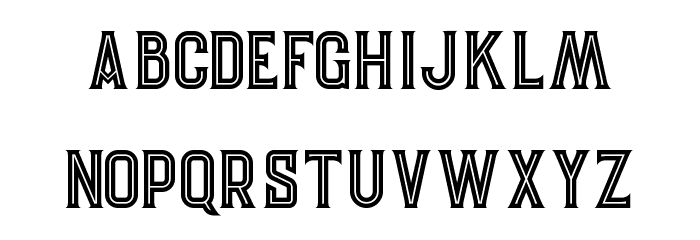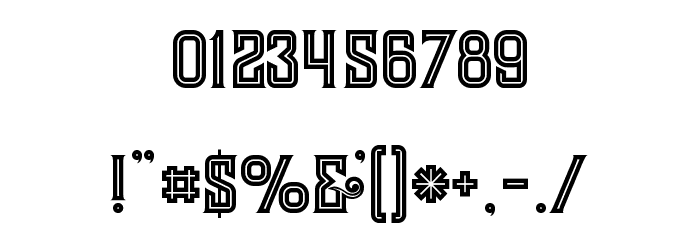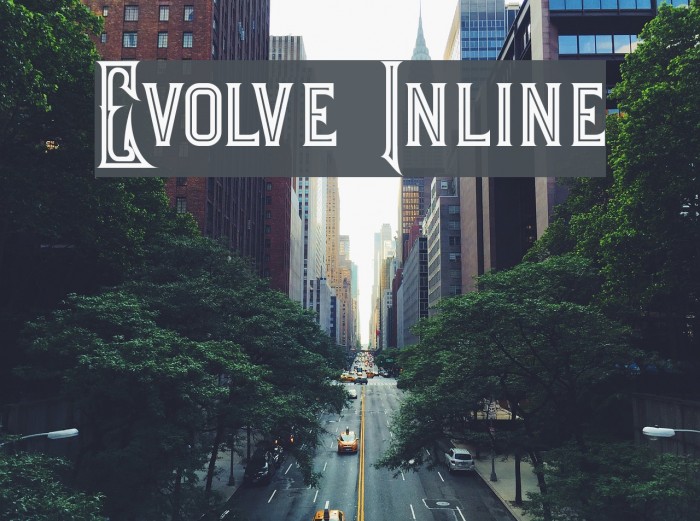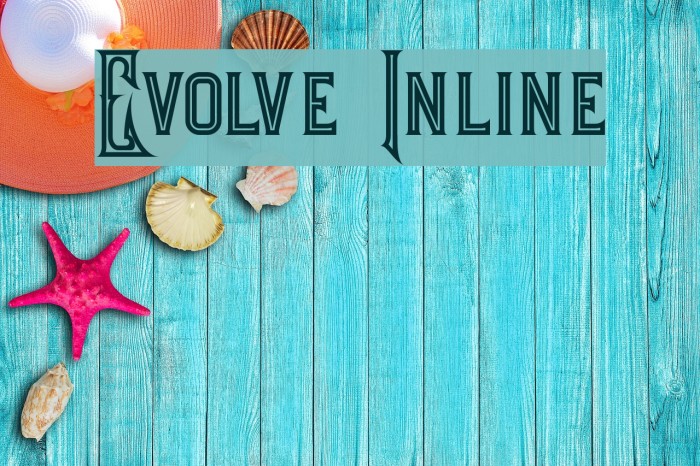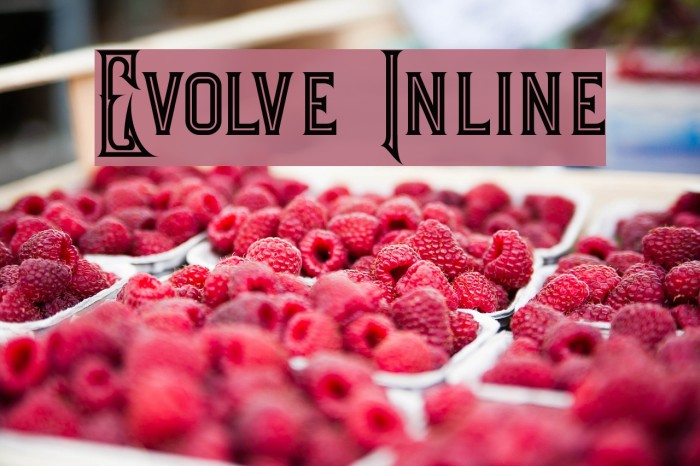
Evolve Inline Font
This font features a distinctive inline design that combines elements of both modern and vintage styles. The uppercase letters are bold and decorative, with intricate inline details that add depth and dimension. The lowercase letters maintain a similar aesthetic, ensuring consistency across text. The numerals and special characters are designed to match the ornate style of the alphabet, making this font suitable for a variety of creative applications. The overall look is both eye-catching and sophisticated, ideal for projects that require a strong visual impact.
A bold, decorative font with intricate inline details and a modern vintage style.
- Proposed Projects: This font is perfect for branding, poster design, album covers, and any project that requires a bold, artistic statement.
- Overall Style: Modern Vintage